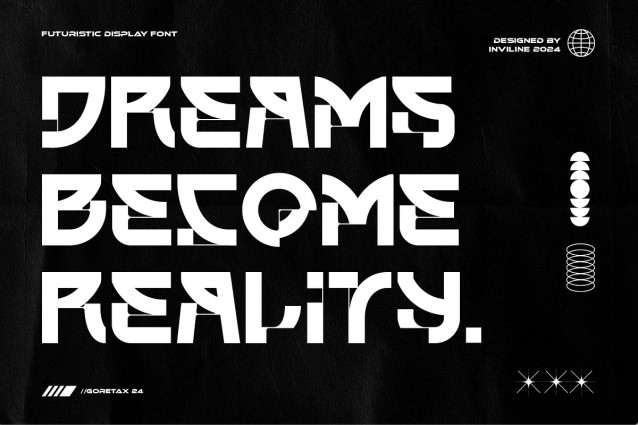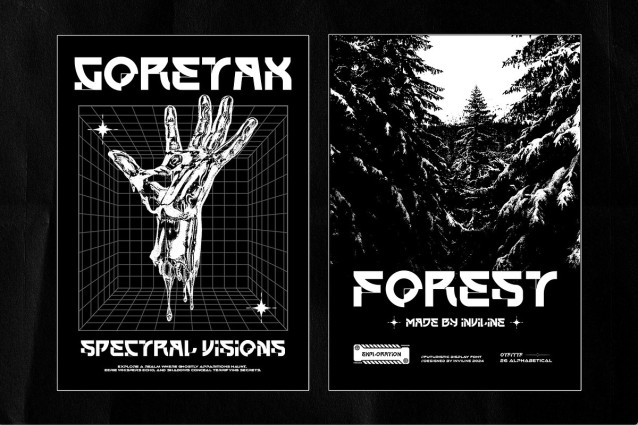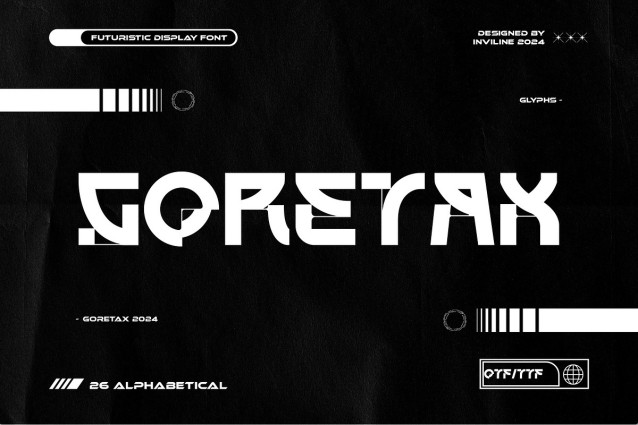
Goretax Font
Goretax Font – Bring a touch of Tech-Futurism to your designs with this meticulously crafted font collection. Perfect for adding a Techwear vibes to your branding, packaging, logos, and more.